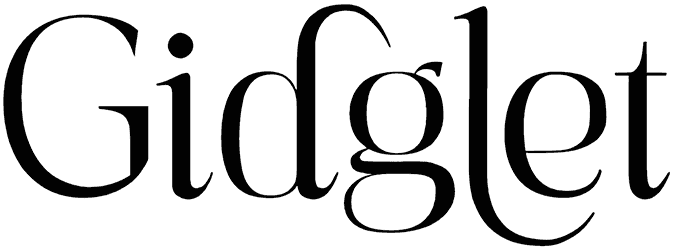
Gidglet Font
The elegant form of this serif font could be the best visual for your novel designs, such as a wedding card. The Gidglet font has a classic and unique style, but it doesn’t cover numbers. We invite you to test this yoga font for your next projects, from formal to informal ones, and spotlight your creative talent.